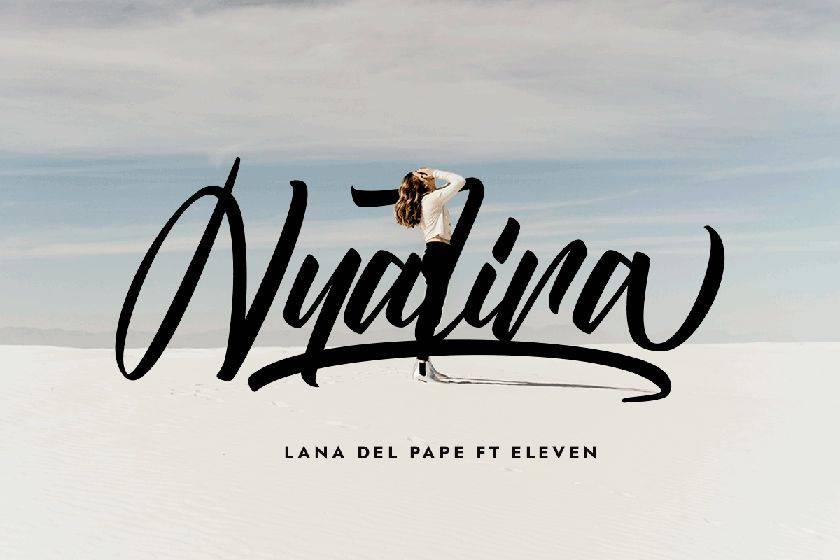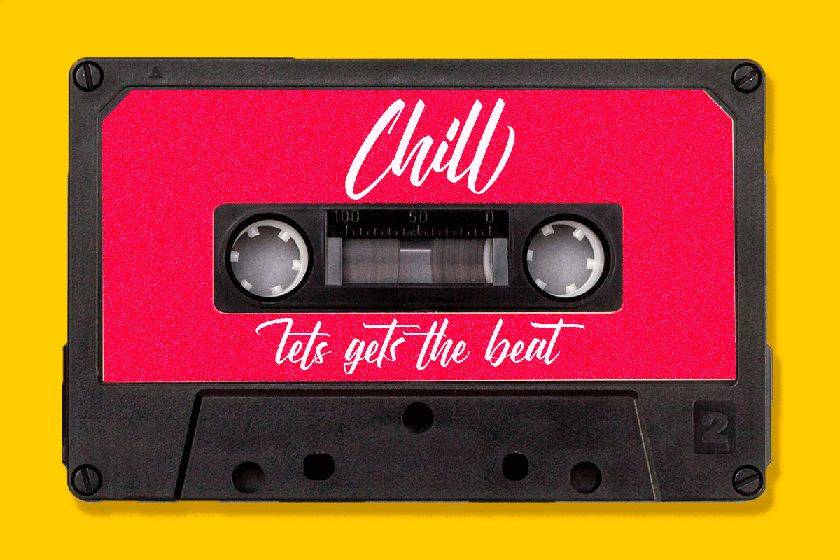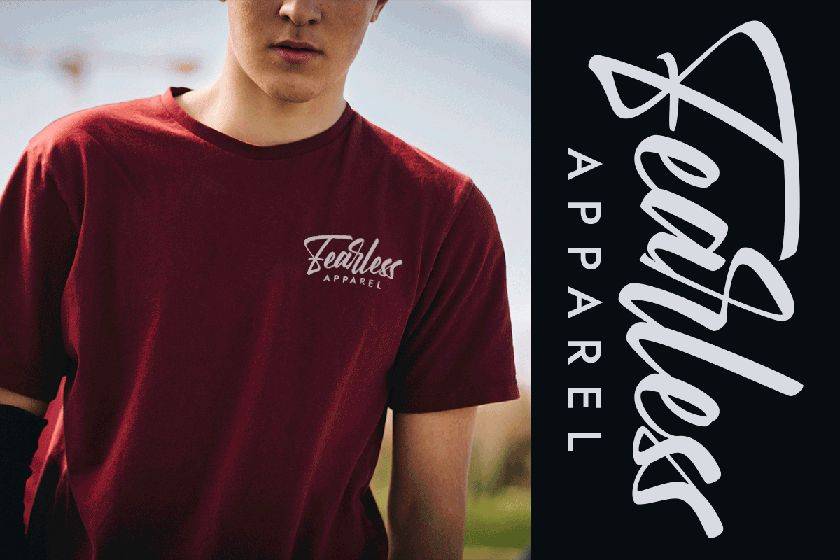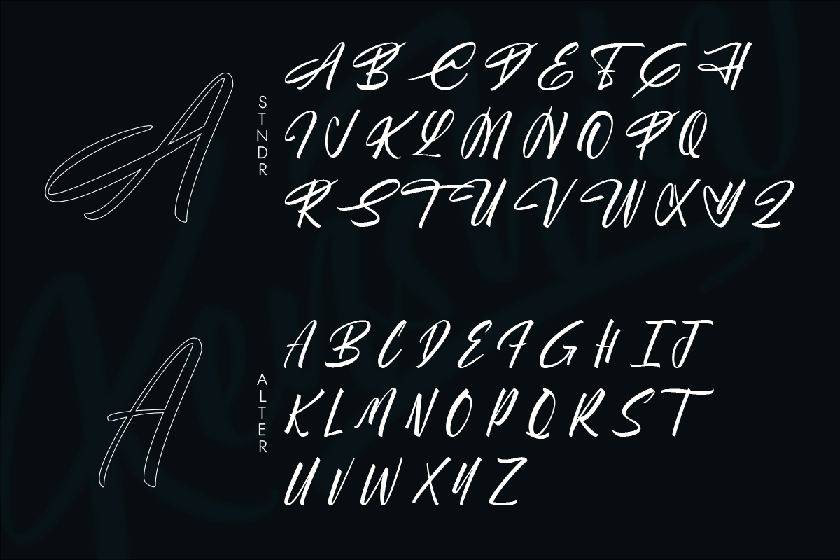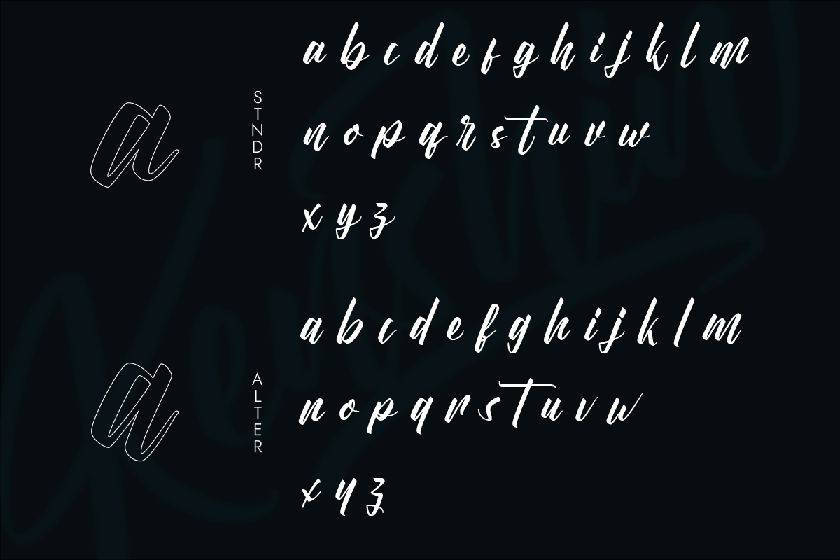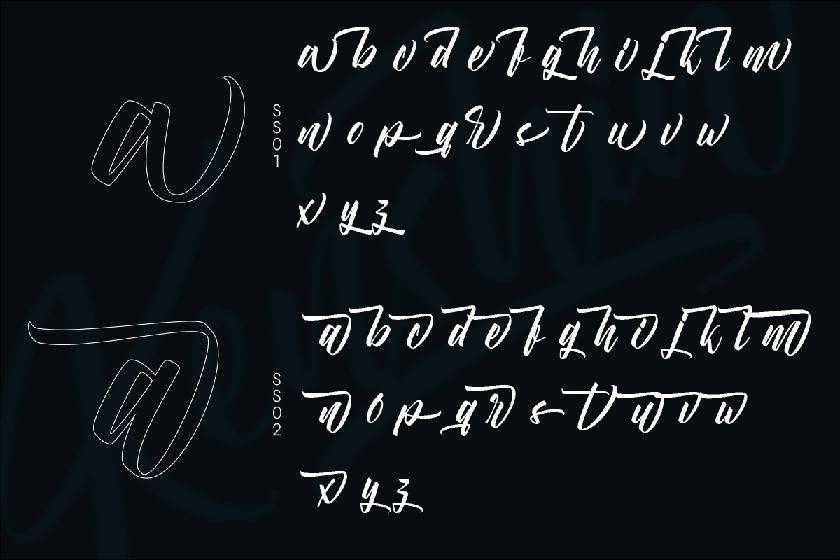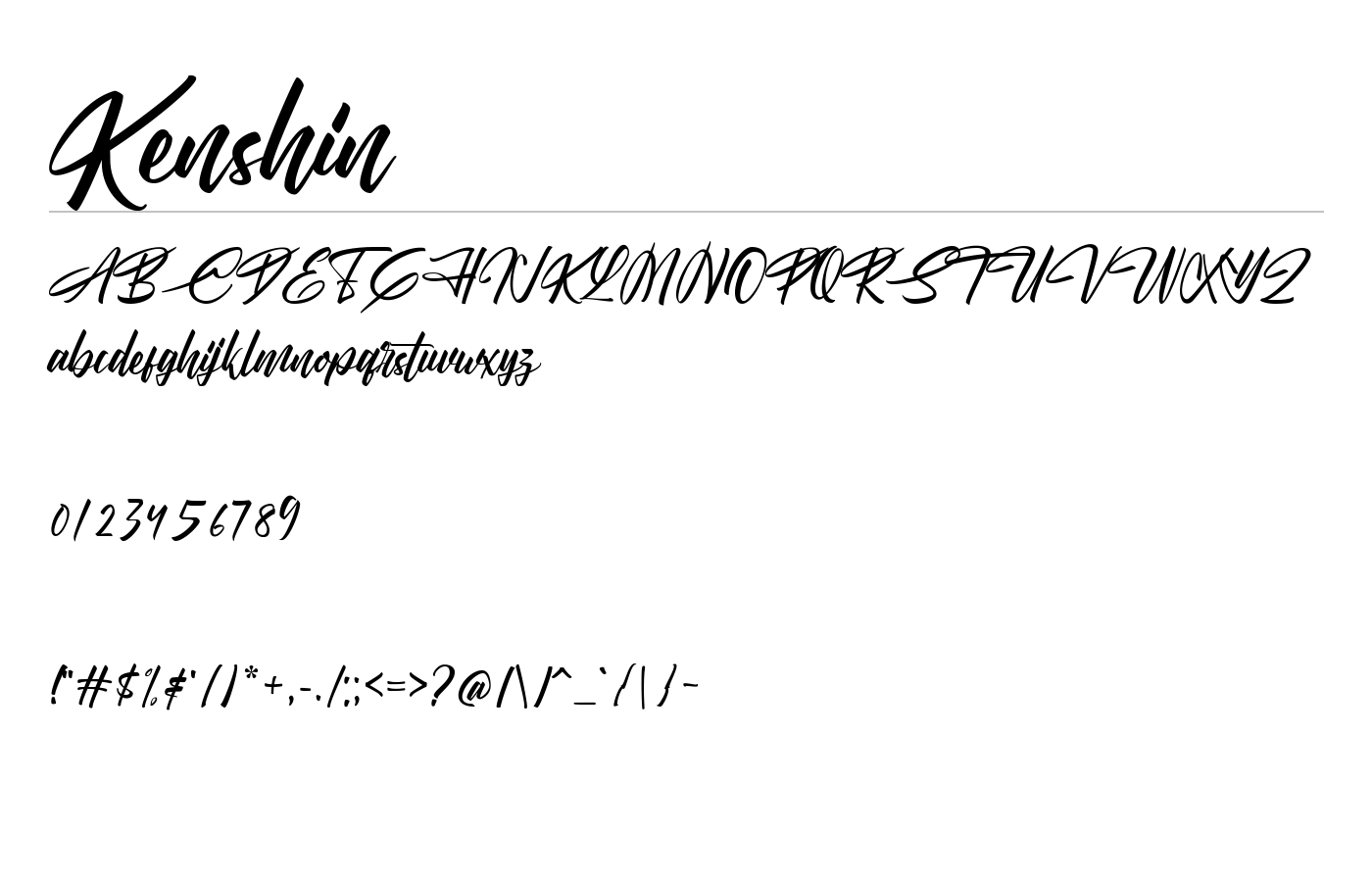
Kenshin is an elegant and modern script font with a dynamic, hand-lettered feel that combines smooth, fluid strokes with slightly rough edges for a natural, authentic look. Its varied stroke weight and stylish uppercase letters make it perfect for creative branding, invitations, and headlines where a personable yet sophisticated touch is desired. This font works beautifully in designs that want to convey warmth, creativity, and a contemporary flair.
Kenshin Font